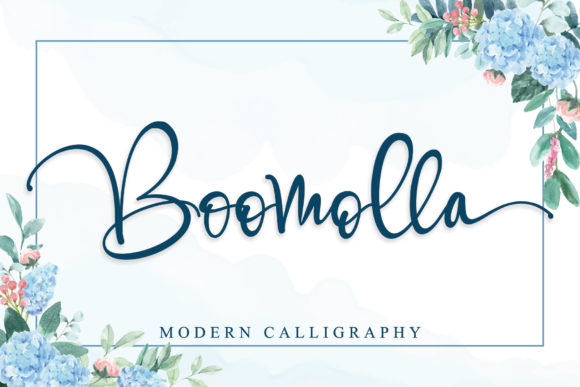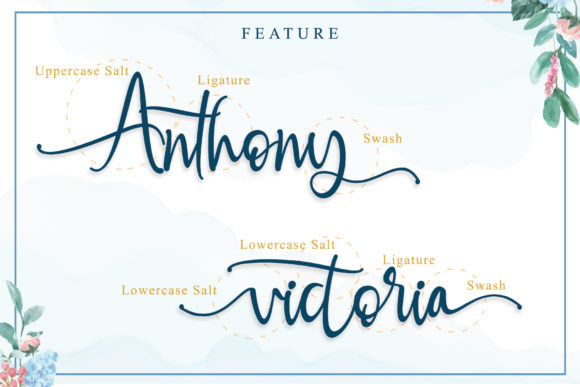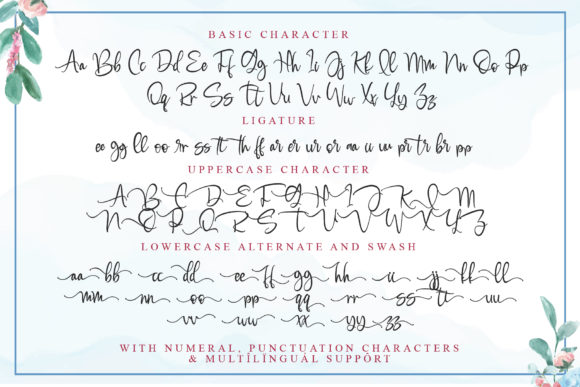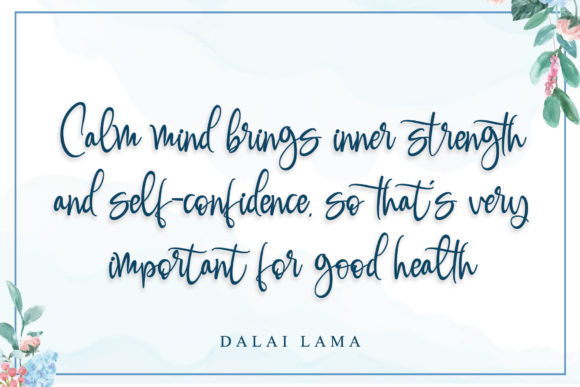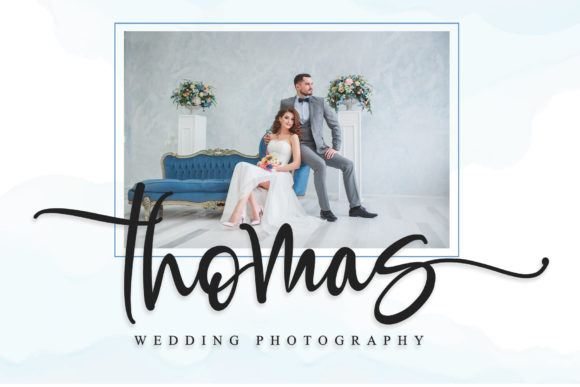
About Boomolla Font
Boomolla is a beautiful handwritten font with a modern look. It features gorgeous swashes and ligatures that make this script incredibly versatile. Boomolla will add a decorative touch in an instant
This font is PUA encoded which means you can access all of the amazing glyphs and swashes with ease! It also features a wealth of special features including alternate glyphs and ligatures.